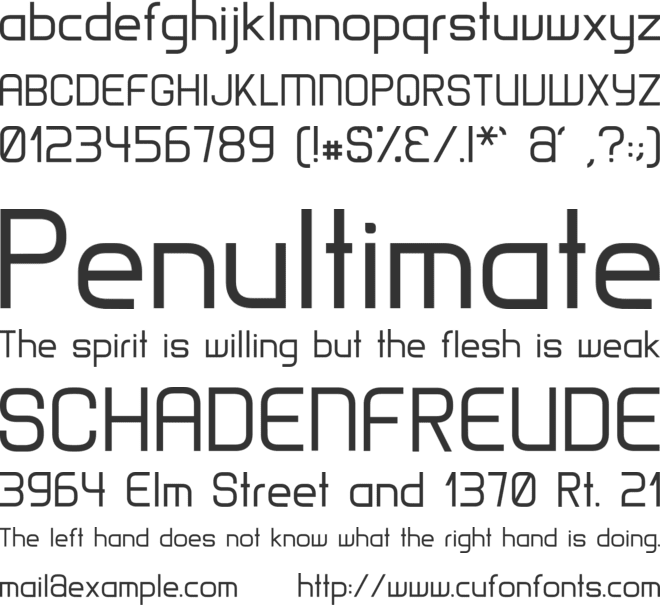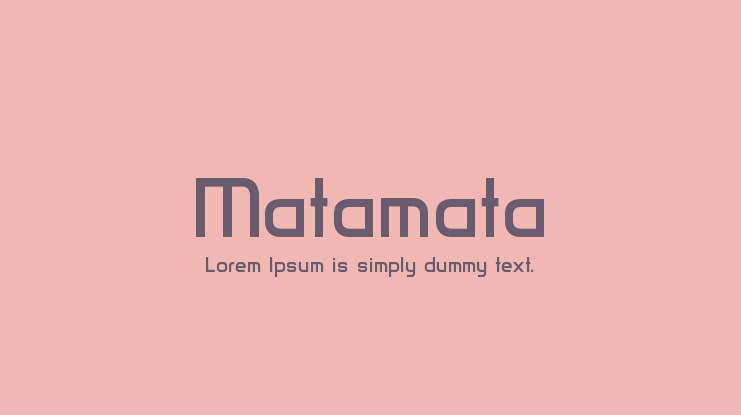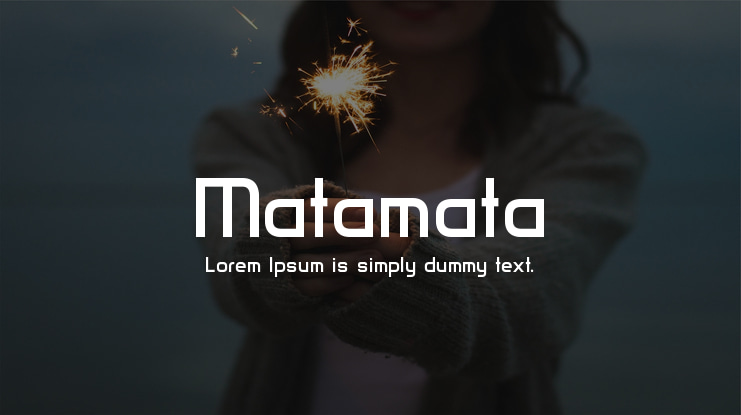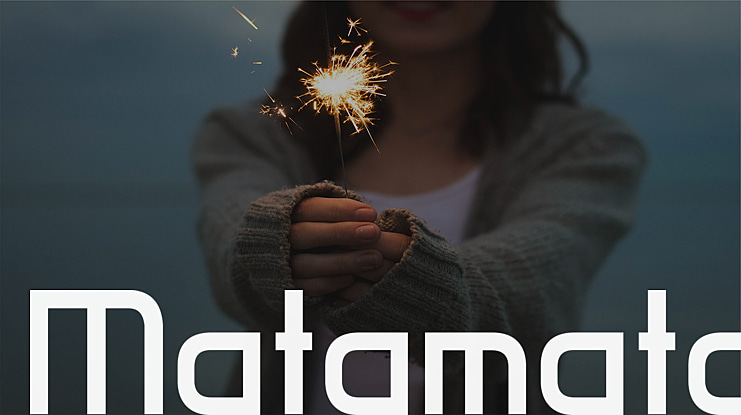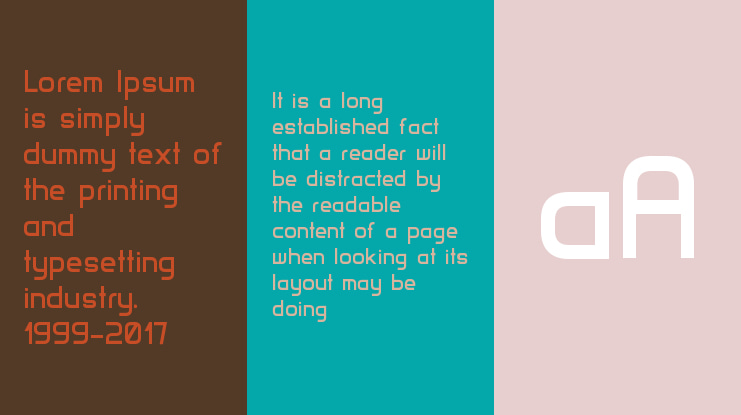
Matamata Font Family
MATAMATA
A Neo-Grotesque / square sans serif typeface.
Process
Matamata’s glyph shapes are drawn from the roading network in the provincial town of Matamata. The relative height of the ascenders / descenders is a reflection on the long run of State Highway 27 towards Waharoa. Counters are a reference to the rounded circle shape in the State Highway 27, Firth Street roundabout. As the place of my birth Matamata holds some emotional significance, but rather it is later periods of my childhood which are referenced in characters such as the ‘$’ with its internal terminals.
Contrast is very low, x height is high, diacritics are playful.
Matamata is a reflection of a passing through, skimming a surface. It is only with closer examination that details are revealed.